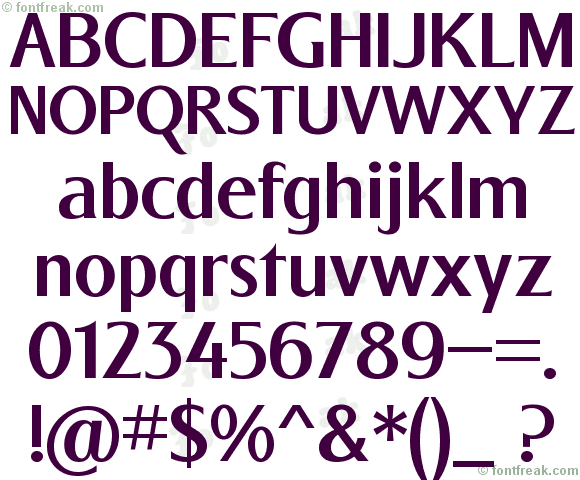
Baqacents Semi Bold
Baqacents Semi Bold, designed by Steve Gardner in 2014, is a striking display typeface that effortlessly merges modern aesthetics with classic influences. This font falls under the category of serif, featuring a semi-bold weight that provides a sturdy yet elegant presence. The characters are well-defined, showcasing a moderate stroke weight that strikes a balance between boldness and readability. The contrast between thick and thin strokes is thoughtfully executed, enhancing the overall visual appeal while maintaining clarity. With ample spacing between letters, Baqacents Semi Bold ensures legibility, making it suitable for a variety of applications.
This font is ideal for use in wedding invitations, where its refined style can convey elegance and sophistication. It also shines in movie posters, providing the dramatic flair necessary to capture attention. Restaurant menus can benefit from Baqacents Semi Bold, as its distinctive look elevates the dining experience by adding a touch of class. Additionally, graphic designers and content creators will find this font particularly useful for branding projects, where a unique and memorable typeface can help establish identity.
Targeted towards graphic designers, small business owners, and content creators, Baqacents Semi Bold offers a unique opportunity for anyone looking to make an impact through typography. Its combination of style and functionality makes it a go-to choice for various creative endeavors.
What sets Baqacents Semi Bold apart is its ability to blend tradition with modernity, creating a font that feels both timeless and contemporary. The availability of the Baqacents Semi Bold font free download adds to its appeal, allowing creatives to explore its potential without barriers. This font not only enhances visual communication but also inspires creativity in every project it touches.